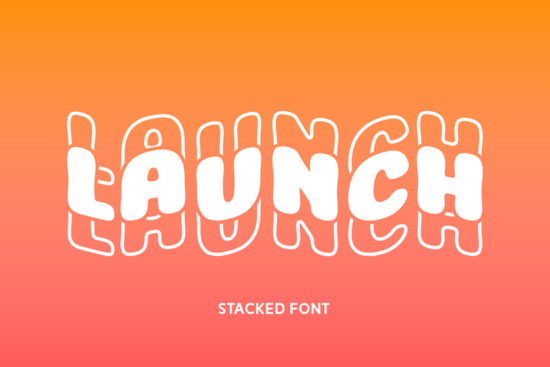
If you need a typeface that grabs attention without feeling heavy, Launch Font delivers exactly that. This stacked wavy display typeface uses overlapping curves to create motion, making it a practical choice for designers, print-on-demand sellers, and small business owners who want lively headlines. Instead of relying on straight lines, the letters flow into one another like ribbons, giving your layouts a natural rhythm that works well on screen and print.
What makes this wavy typeface stand out?
The core idea behind this design is stacked movement. Each character is built from multiple wavy strokes that sit on top of each other, creating depth without visual clutter. Because the curves stay consistent across the alphabet, words read smoothly at larger sizes. The undulating lines keep the eye moving forward, which works perfectly for promotional banners, social graphics, or product labels. The playful texture also softens bold messaging. From a production standpoint, the vector paths stay clean, meaning the font scales neatly for vinyl cutting, laser engraving, or high-resolution print files.
Where does a stacked display font work best?
Display typefaces are meant to be seen large. This style performs strongest when used sparingly for:
- Brand headers and logos that need a friendly personality
- Product packaging for handmade goods or lifestyle items
- Print-on-demand apparel where curved text wraps around chest prints
- Event posters and digital ads that require a quick visual hook
Because the letters already carry visual weight, keep body text in a simple sans serif. Let the wavy characters handle the spotlight while your supporting copy stays easy to read.
How do you pair it with other typefaces?
Matching a decorative font with the right supporting typeface saves you from layout fatigue. When your main headline carries this much motion, your secondary text should stay grounded. A clean geometric sans serif works reliably for subheadings, while a straightforward serif handles longer paragraphs without competing for attention.
If you enjoy experimenting with contrasting moods, you might browse a festive script option for accent words, or test a soft rounded style when you want a gentle vibe. For projects that lean into vintage aesthetics, pairing the wavy letters with a classic throwback typeface creates balanced nostalgia. When you need something with a similar bounce but a different structure, a groovy alternative can give you a fresh starting point. You can also explore the full stacked wavy series to compare spacing variations.
What should you check before adding it to your toolkit?
You can also preview how Launch Font renders across different backgrounds before finalizing your layout. Running a quick mockup on cotton, cardstock, or glossy packaging will show you how the overlapping waves interact with real-world printing methods.